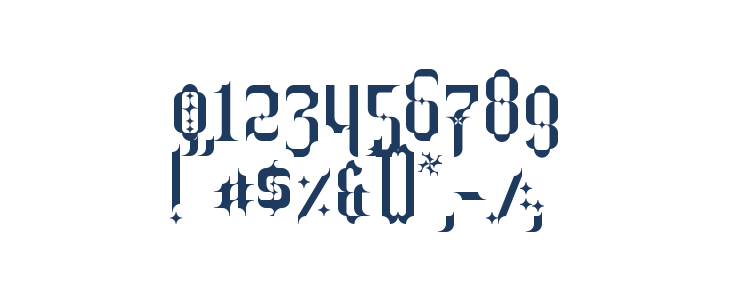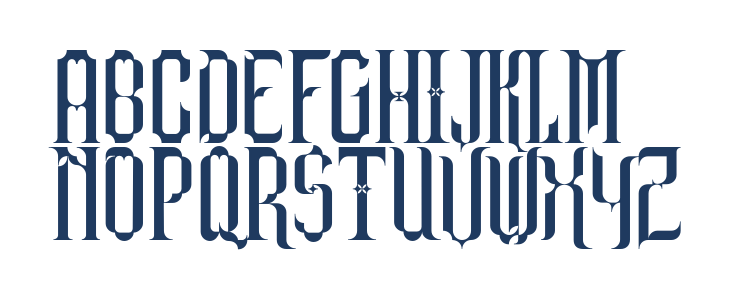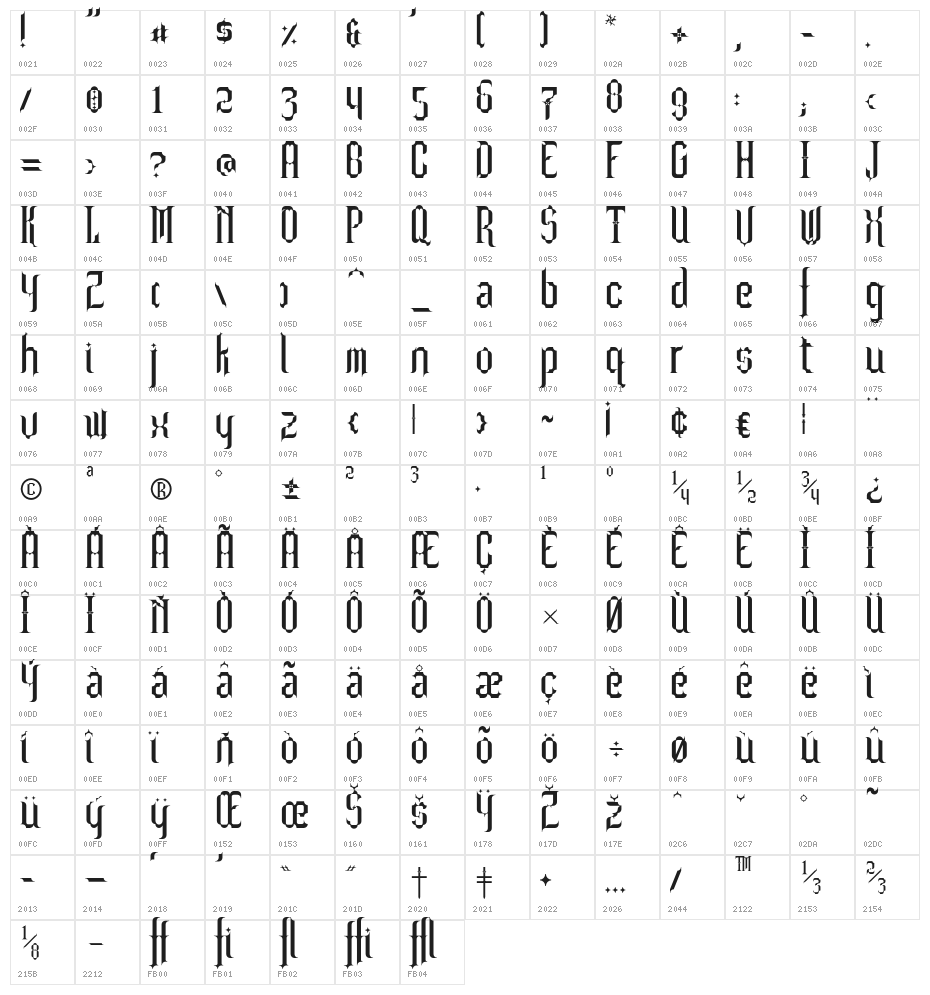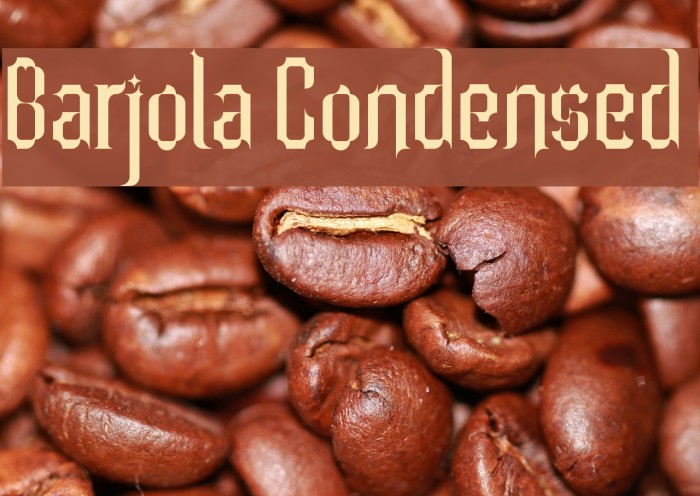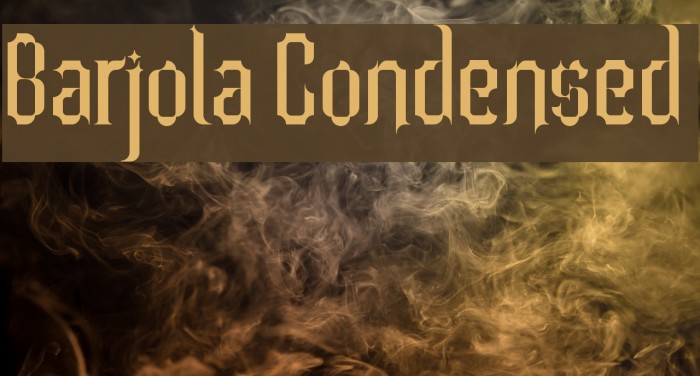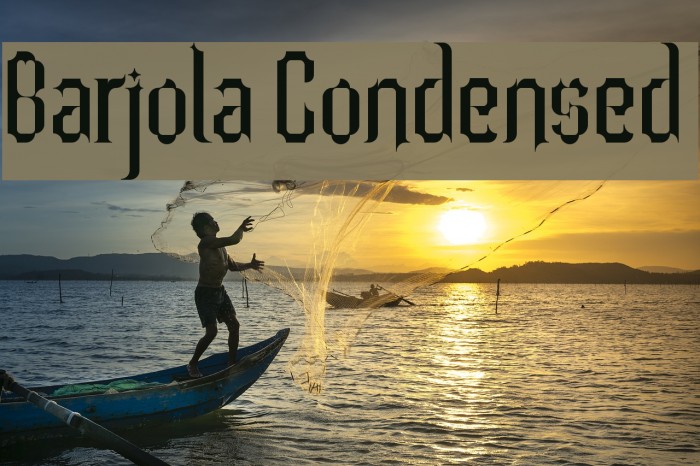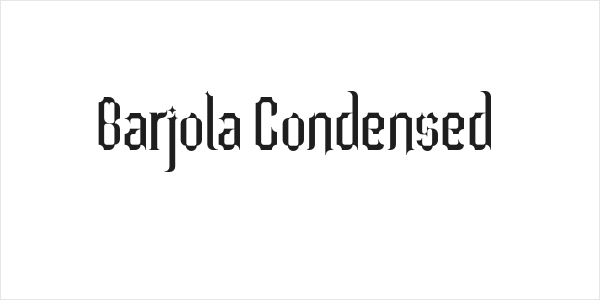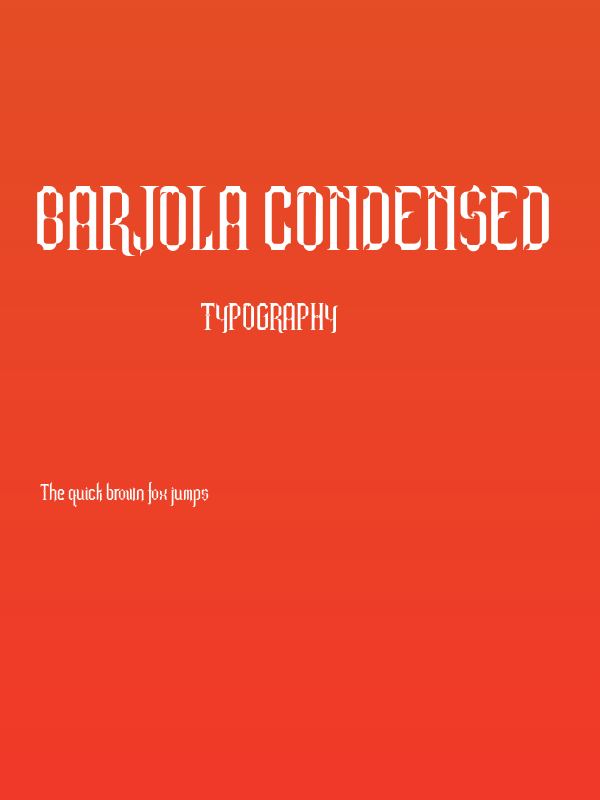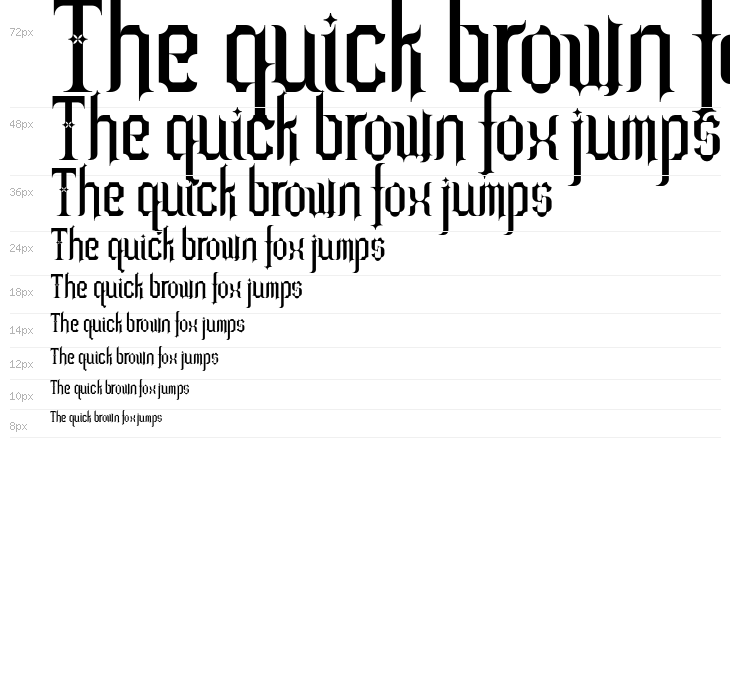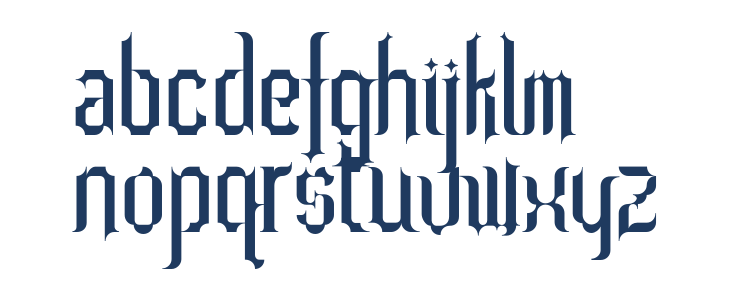
Barjola Condensed Font
Barjola Condensed Description
This font features a bold and striking design with a strong Gothic influence. The characters are tall and narrow, with sharp, angular edges and decorative flourishes that give it a distinct, ornate appearance. The uppercase letters are particularly elaborate, with intricate details that add a sense of drama and elegance. The lowercase letters maintain the same stylistic elements, ensuring consistency throughout the typeface. Numbers and special characters are designed to match the overall aesthetic, making this font suitable for creating a cohesive and visually impactful design. The condensed width of the characters allows for efficient use of space, making it ideal for headlines or titles where space is limited.